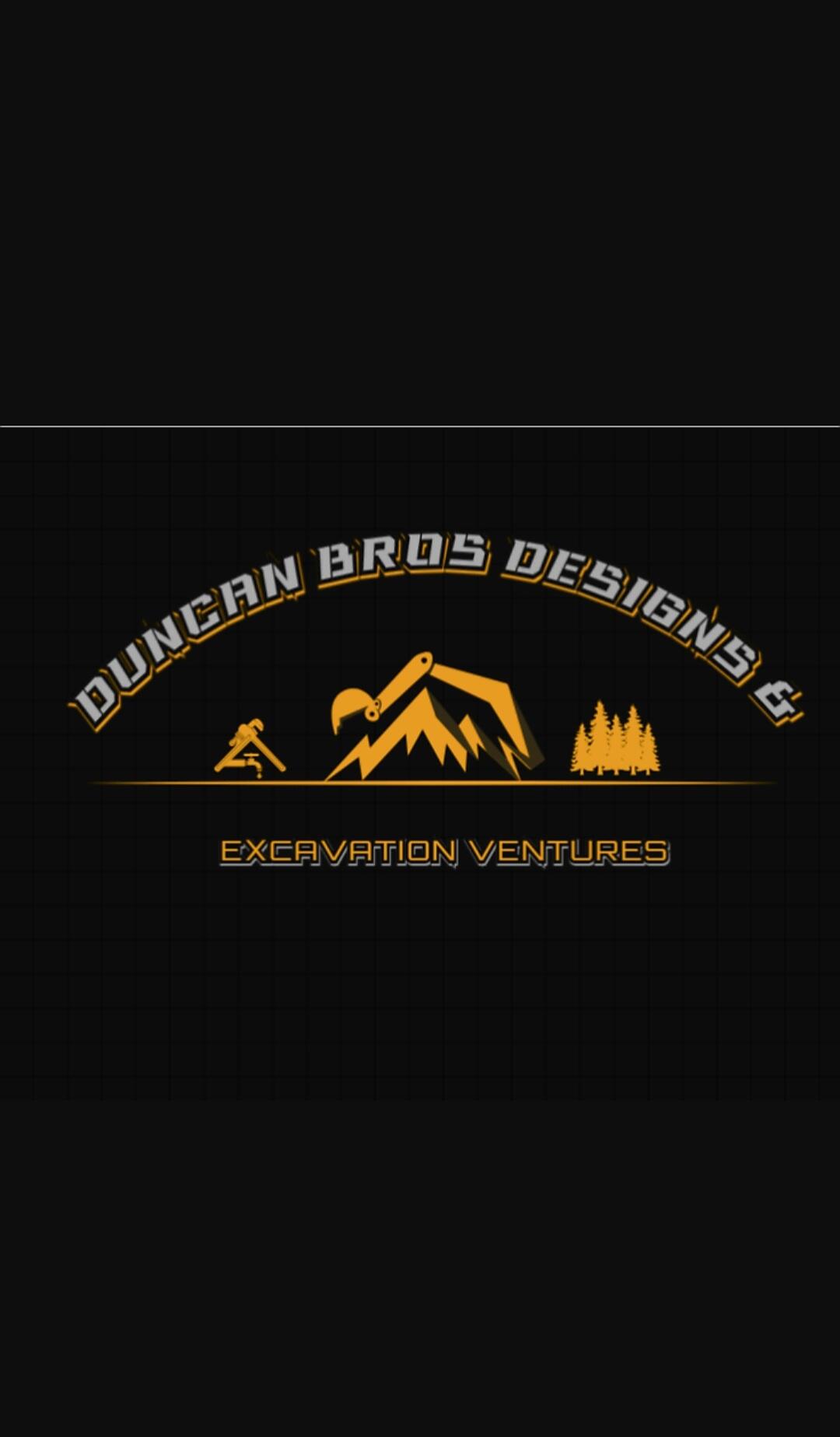
I need help I identifying this typeface please for Construction company Duncan Bros
Hi. I'm needing to vector out this logo for a friend but I don't know the typeface for the main name arched around the top. Does anyone recognize it? Futuristic. I believe It comes in both a solid and stencil version.